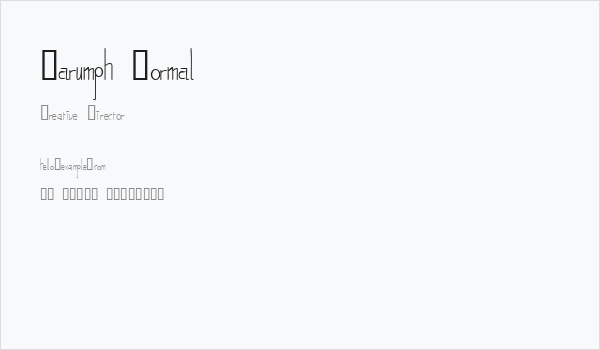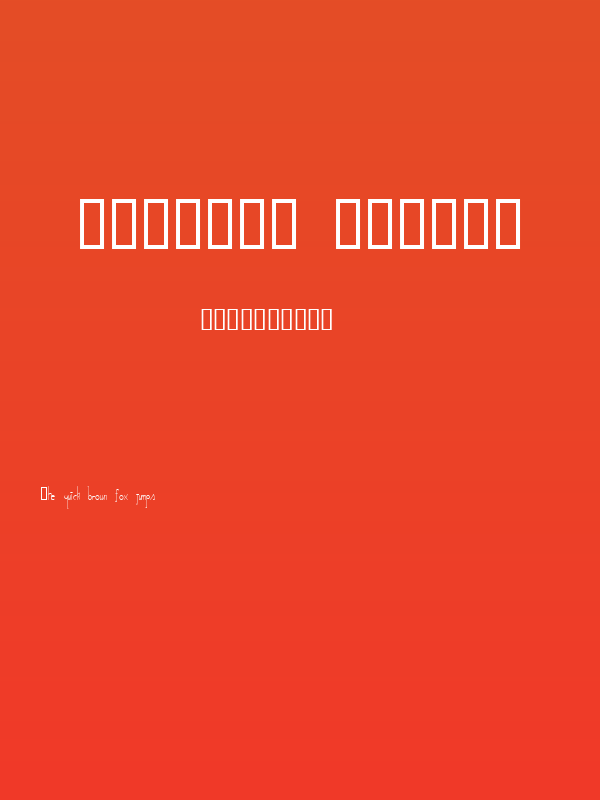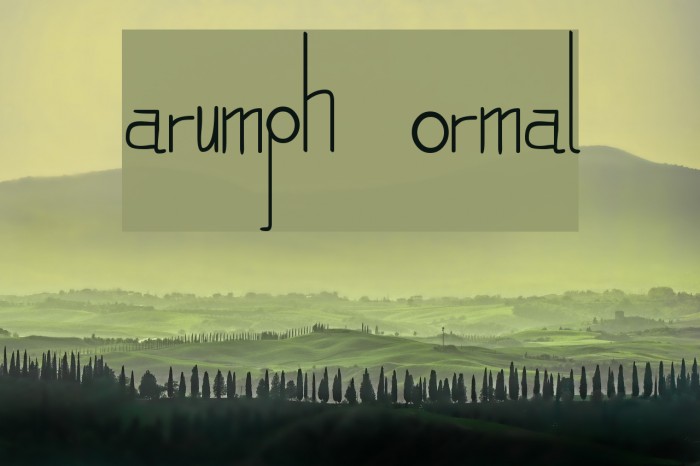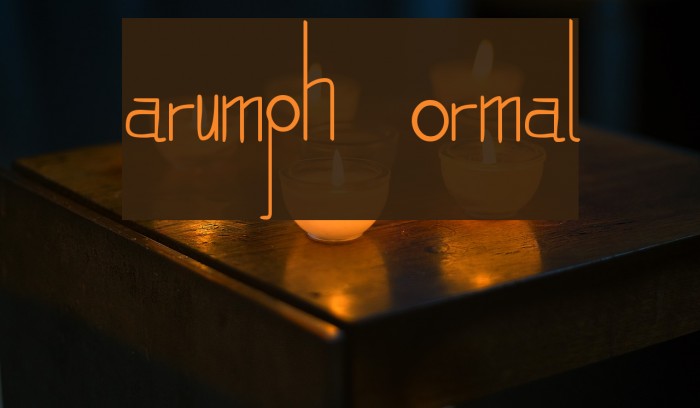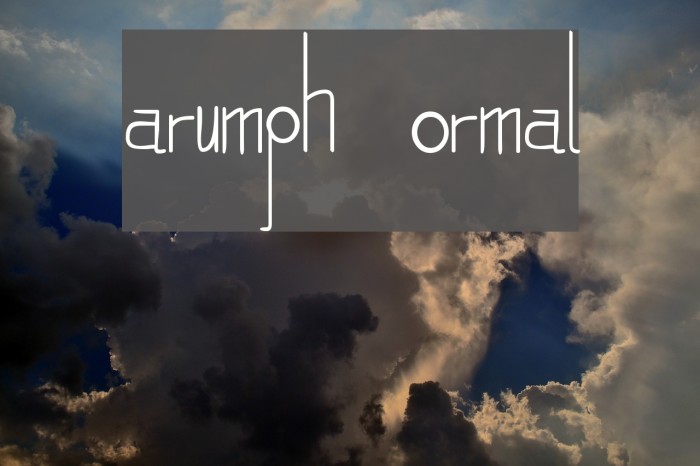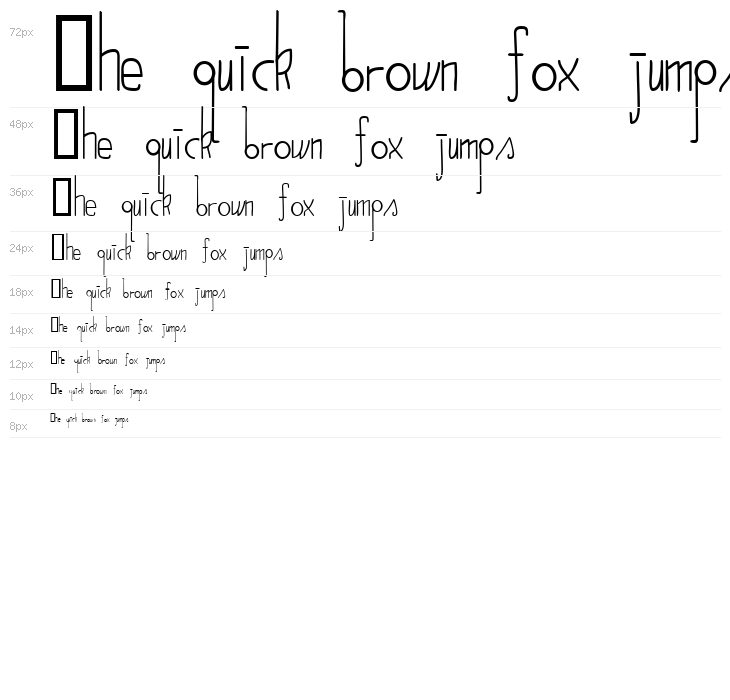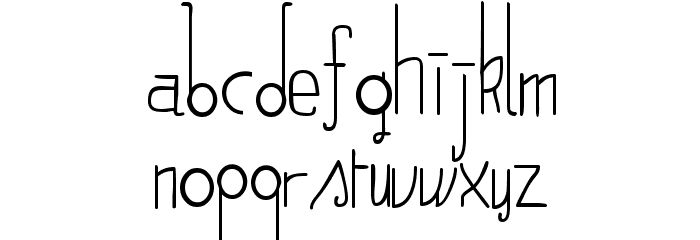
Harumph Normal Font
Harumph Normal Description
This font features a whimsical and playful design with elongated ascenders and descenders, giving it a unique and artistic flair. The characters are thin and delicate, with a consistent stroke width that maintains a light and airy feel. The lowercase letters exhibit a quirky charm, with some characters displaying unexpected curves and angles. The overall appearance is both modern and slightly eccentric, making it stand out in creative projects. The spacing between characters is normal, ensuring readability while maintaining its distinctive style.
| Overall Style | Modern, Whimsical |
| Use Case | Headlines, Artistic projects |
| Proposed Projects | Ideal for creative projects such as invitations, greeting cards, children's books, and artistic posters. |